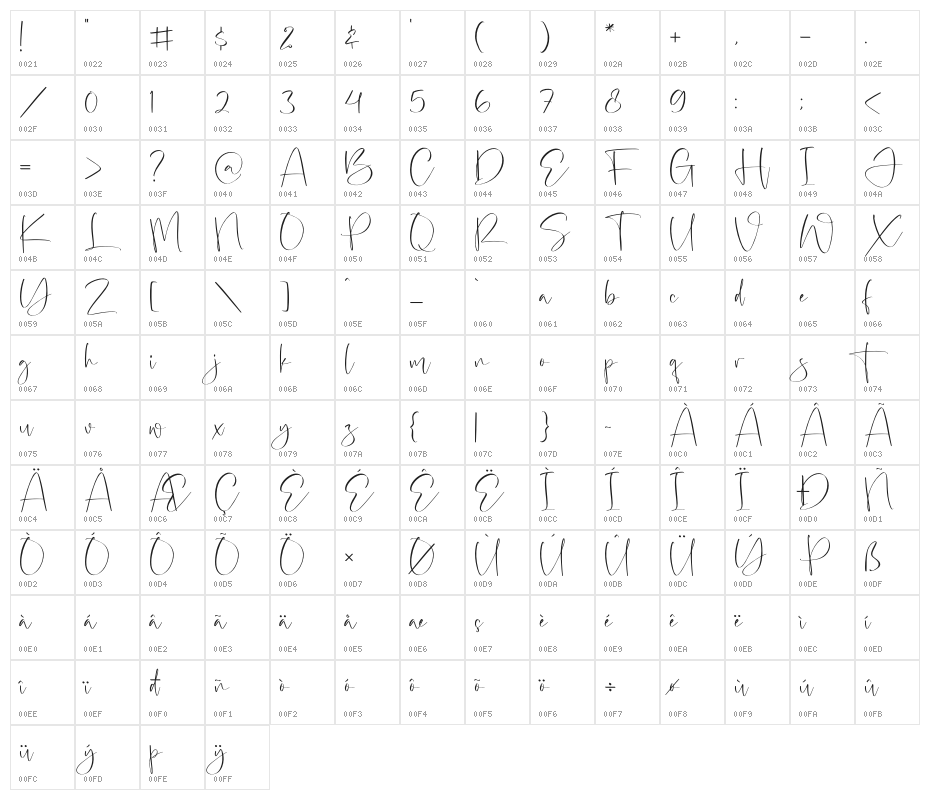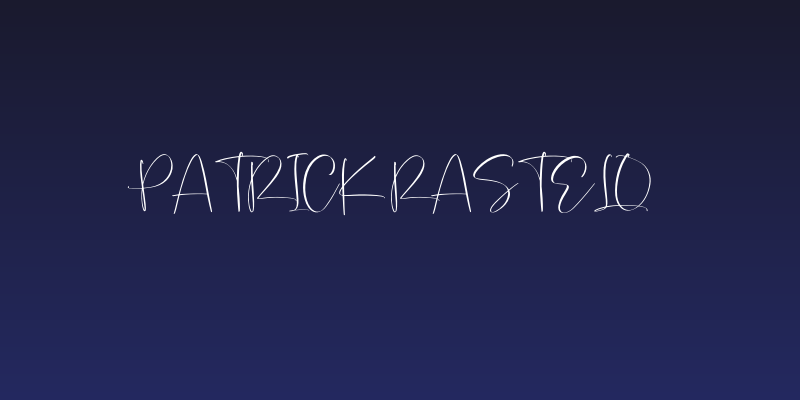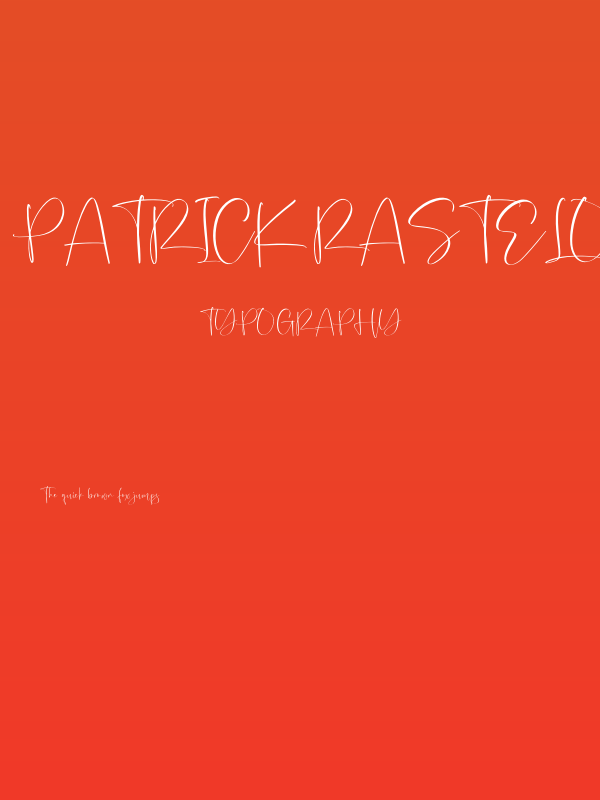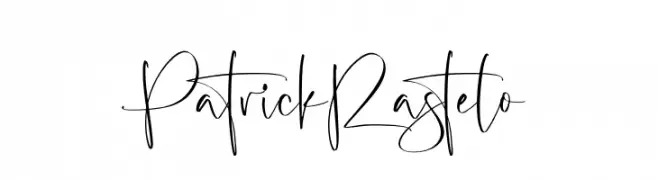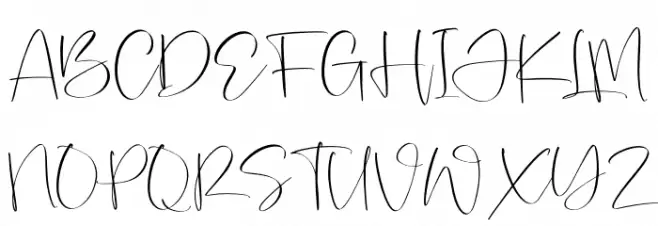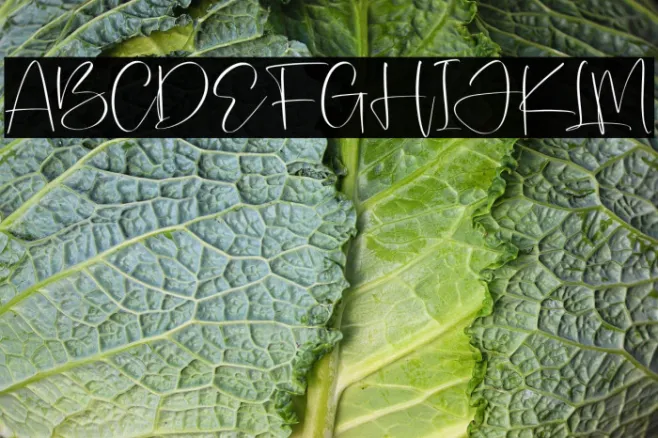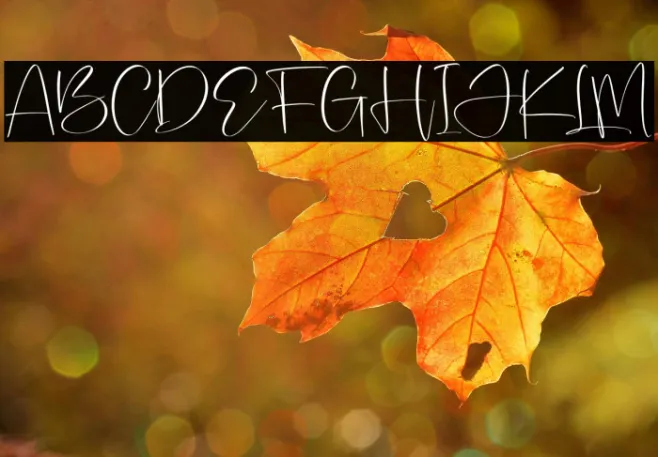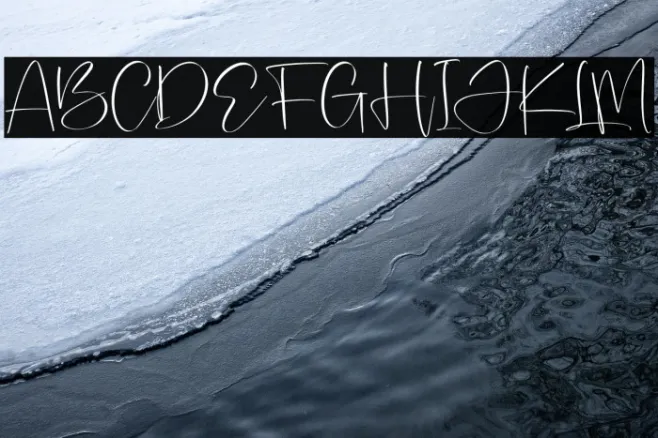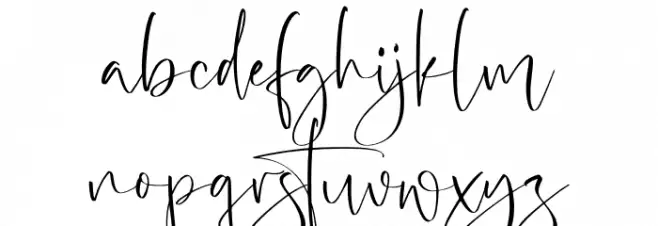
Patrick Rastelo Font
Patrick Rastelo Description
A flowing, handwritten script font with a casual and artistic style, featuring irregular strokes and a playful appearance.
| Use Case | Logos, Headlines |
| Proposed Projects | Greeting cards, invitations, personal branding. |